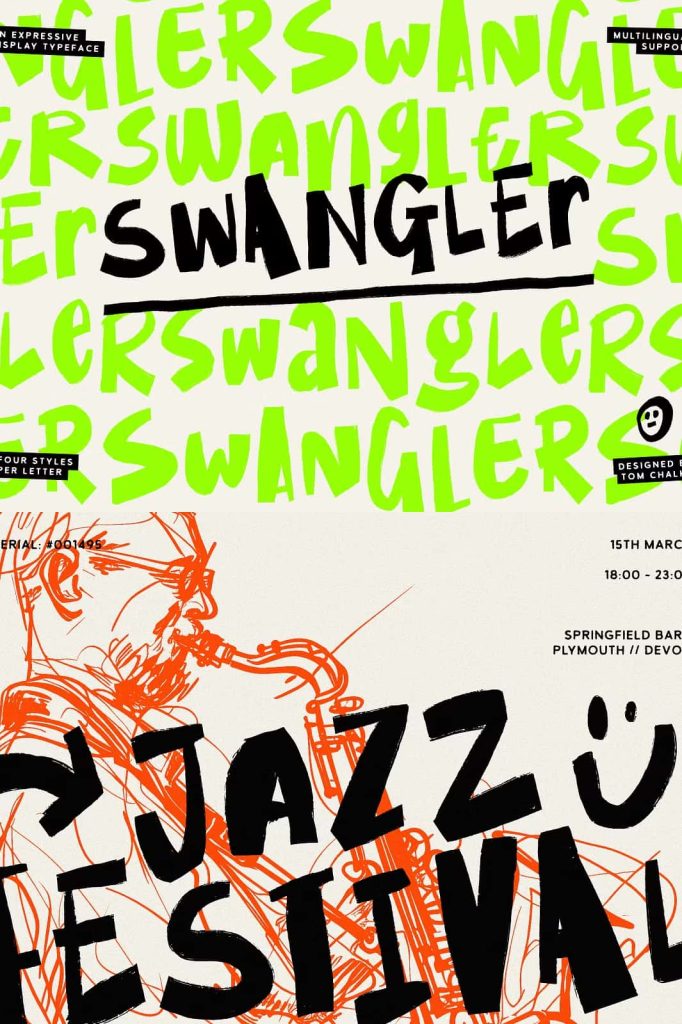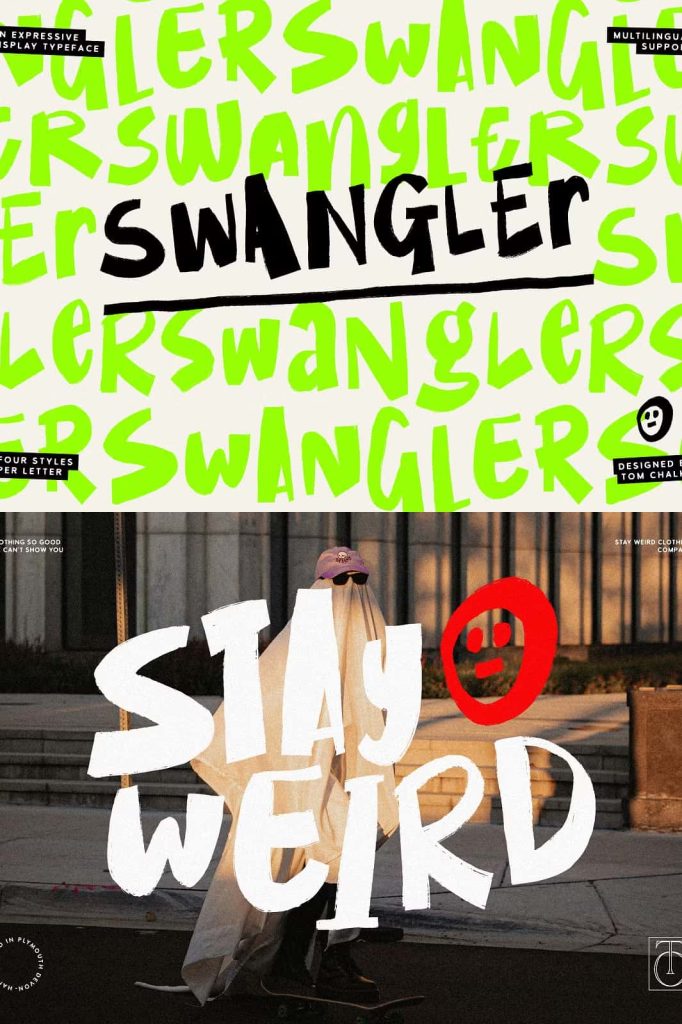
SWANGLER – Energetic Brush FontcoreografyJuly 13, 2025Fonts Introduce a splash of spontaneity and flair to your designs with ‘Swangler,’ a typeface that’s as bold and confident Download